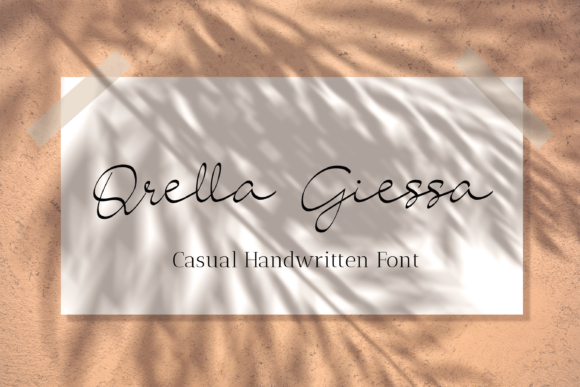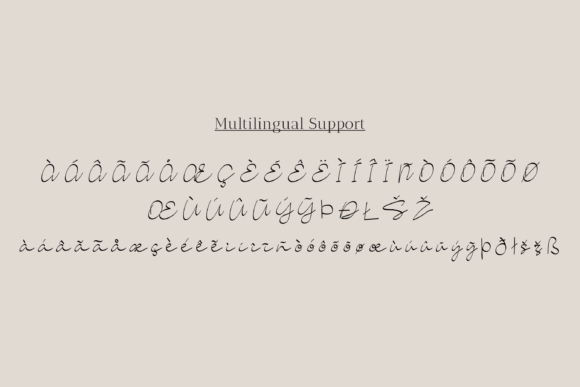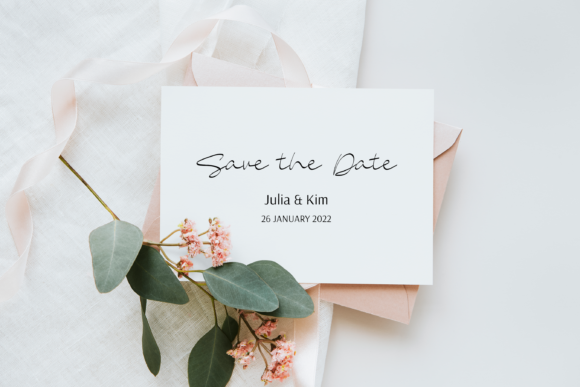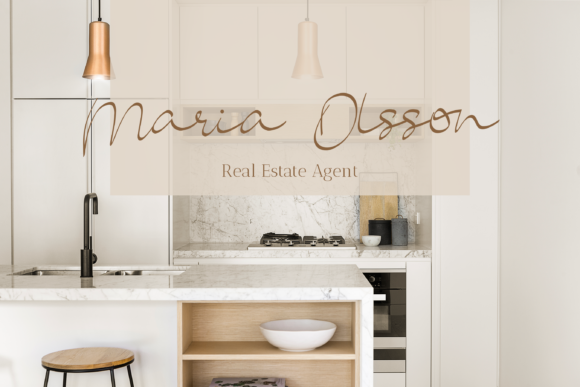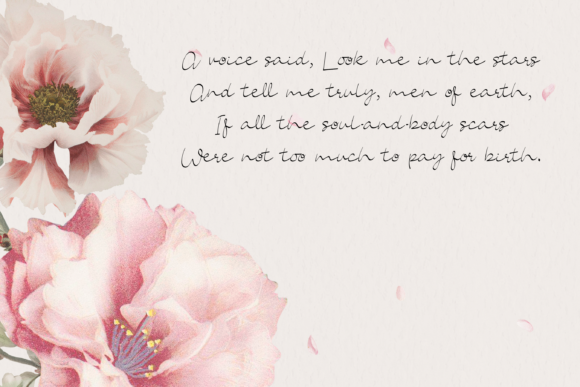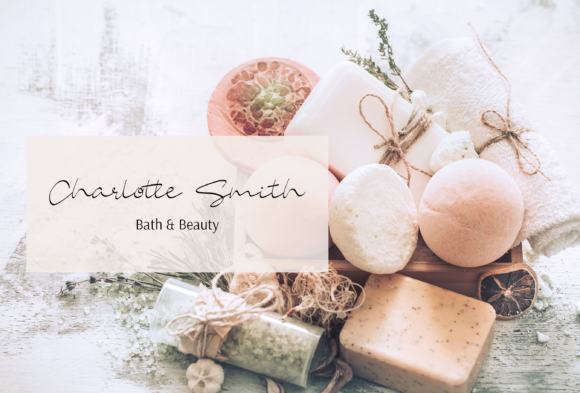
About Qrella Giessa Font
“Qrella Giessa” is a script font that captures attention with its unique and graceful style. Its distinct letterforms and elegant curves make it a captivating choice for various design projects. This font’s ravishing aesthetic lends itself particularly well to creating stunning wedding invitations, captivating stationary art, eye-catching social media posts, and a wide array of other visually appealing content.
The name “Qrella Giessa” hints at the font’s individuality and charm. Its graceful lines and exquisite details create a sense of sophistication that resonates beautifully with projects that require an elevated and refined touch. Whether you’re designing wedding materials, creating art for stationery, or aiming to make an impact on social media, “Qrella Giessa” has the potential to elevate your designs to new levels of beauty.
With its distinct and graceful script style, “Qrella Giessa” adds a touch of elegance to every character, creating an almost artistic flow to the text. This characteristic makes it especially fitting for projects that need to convey a sense of refinement and allure, such as wedding invitations that set the tone for a special day.
“Qrella Giessa” empowers you to infuse your designs with a captivating charm. Its versatility extends from formal occasions like weddings to modern digital platforms like social media. The font’s ravishing style is sure to capture the attention of your audience and leave a lasting impression.
When using “Qrella Giessa,” you’re provided with a font that offers both visual appeal and a unique personality. Its graceful script forms effortlessly turn ordinary text into a work of art, making it a delightful choice for projects that demand a touch of sophistication and elegance.